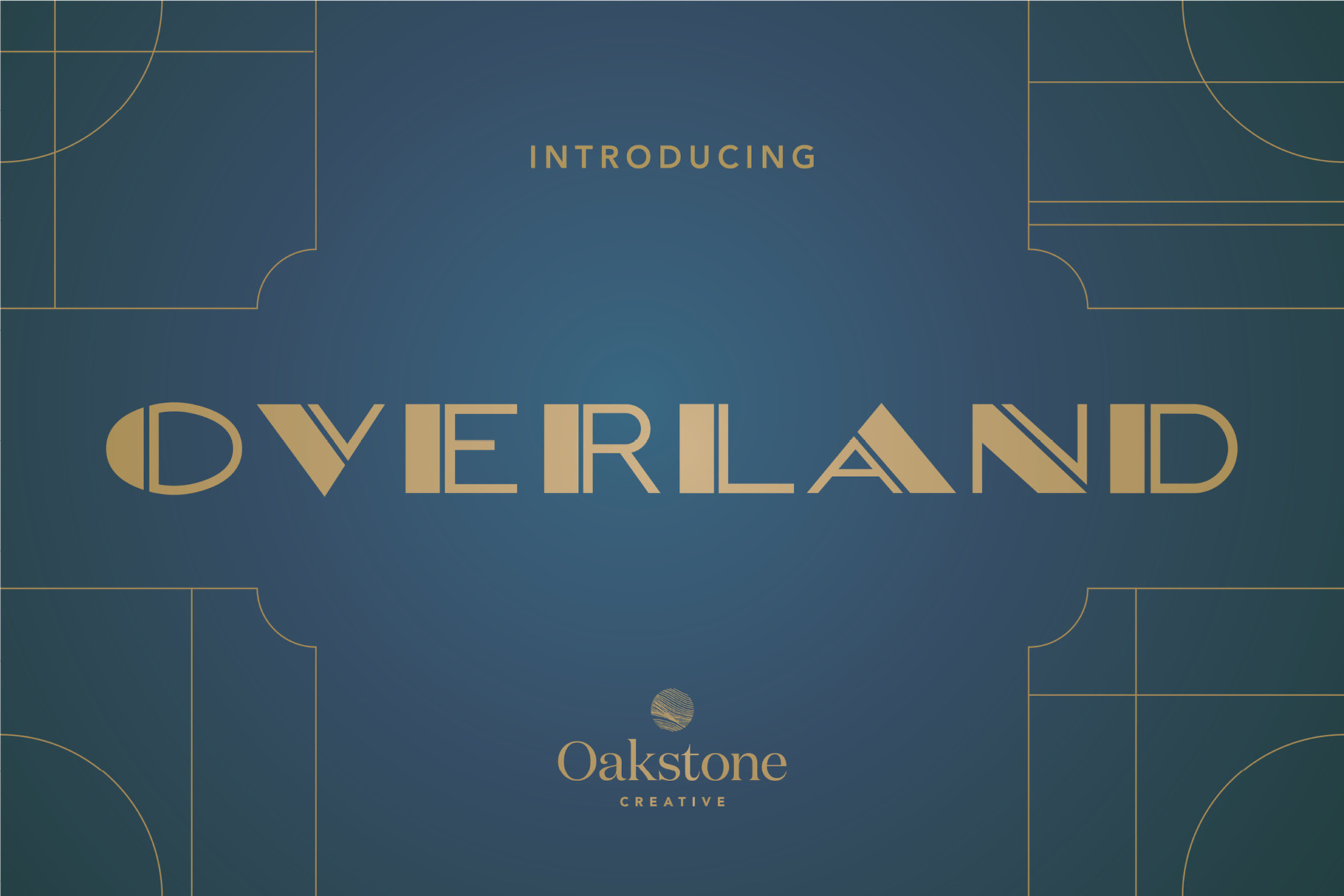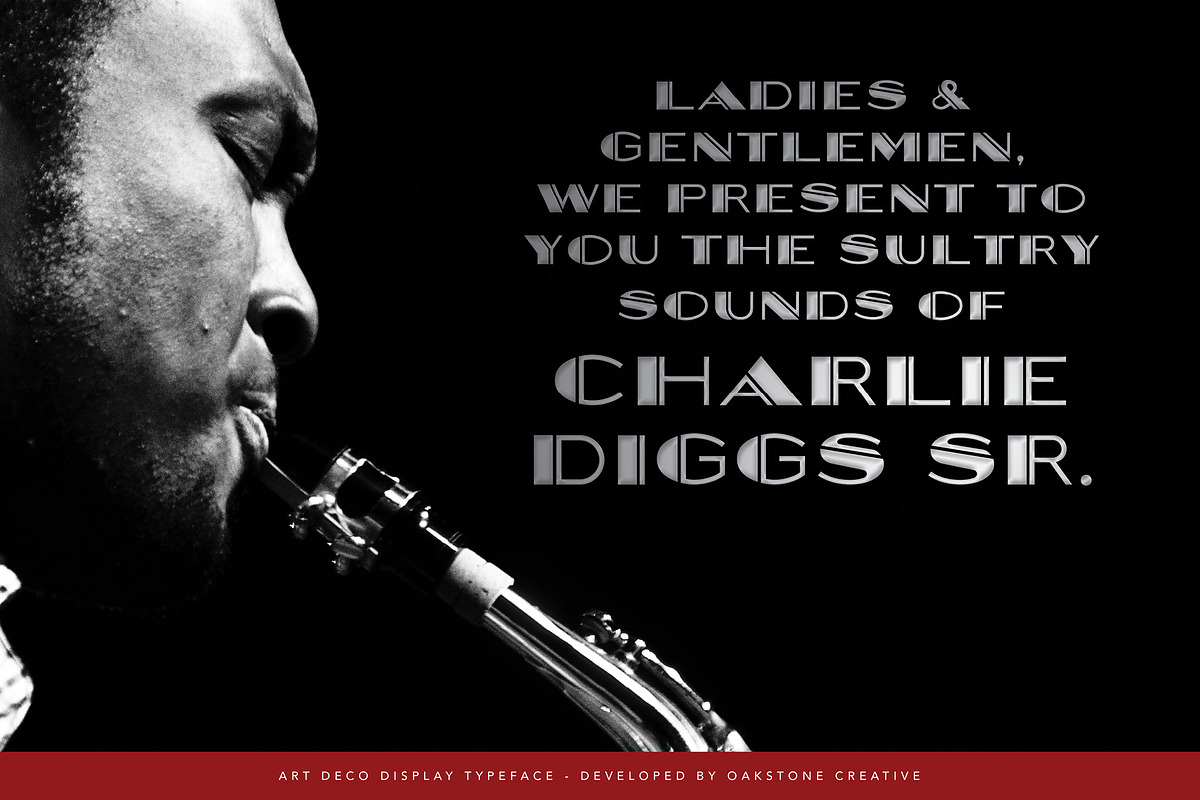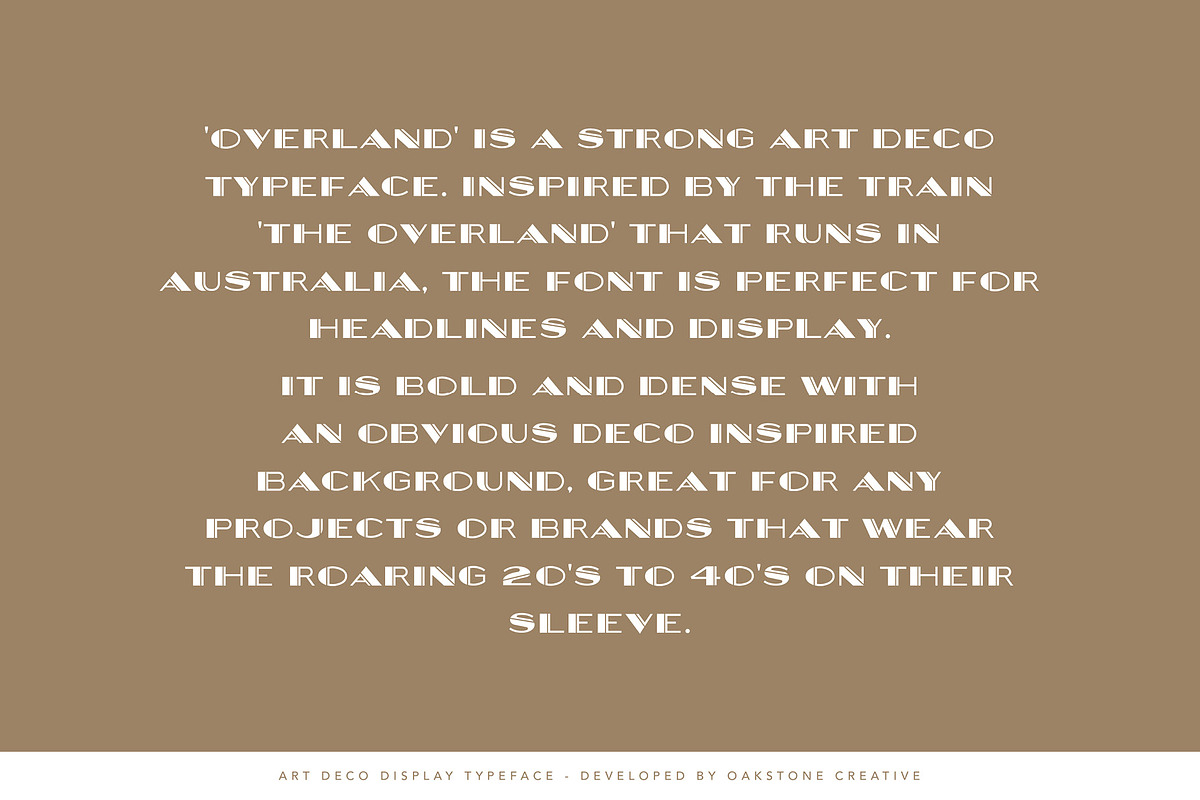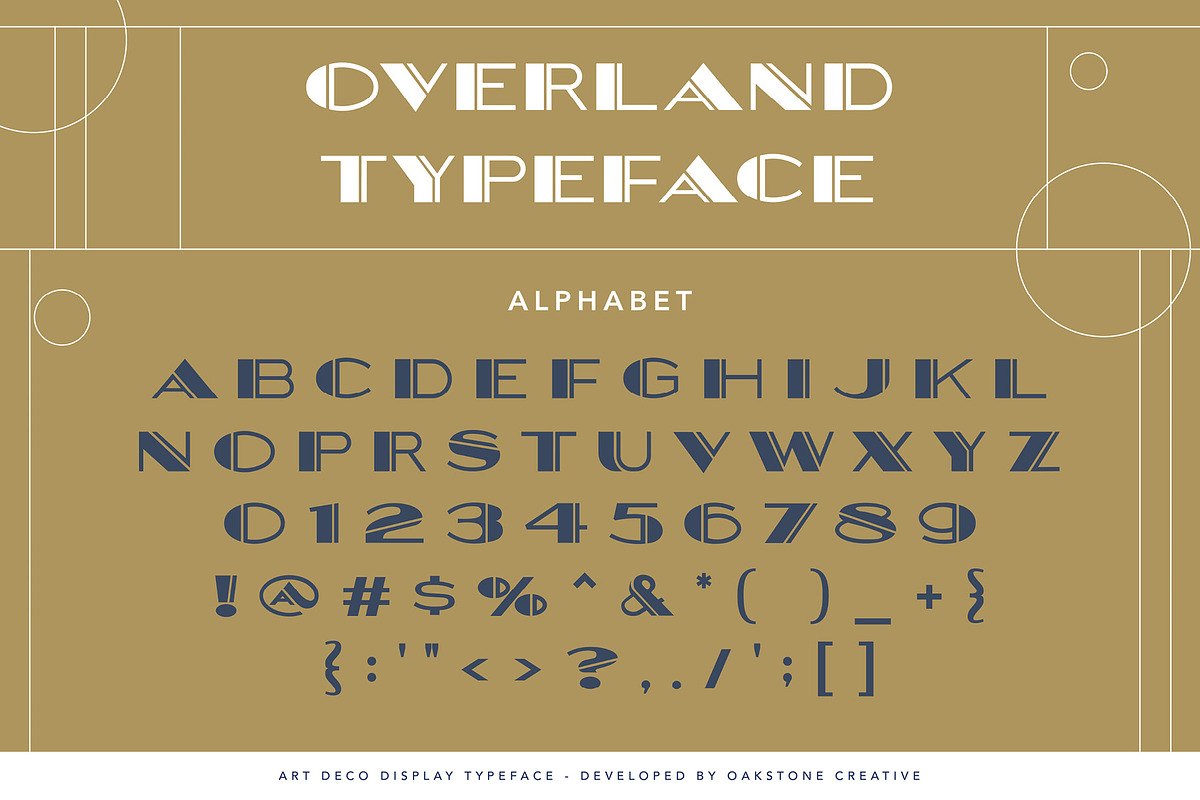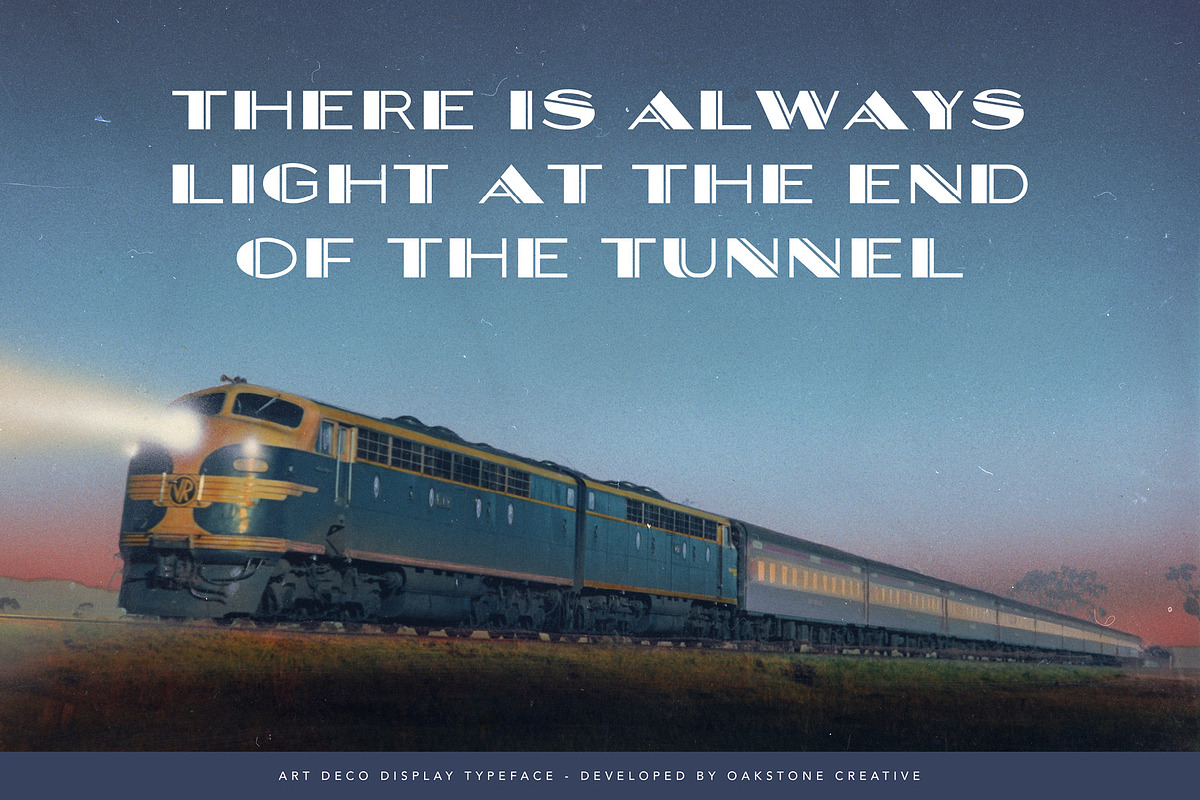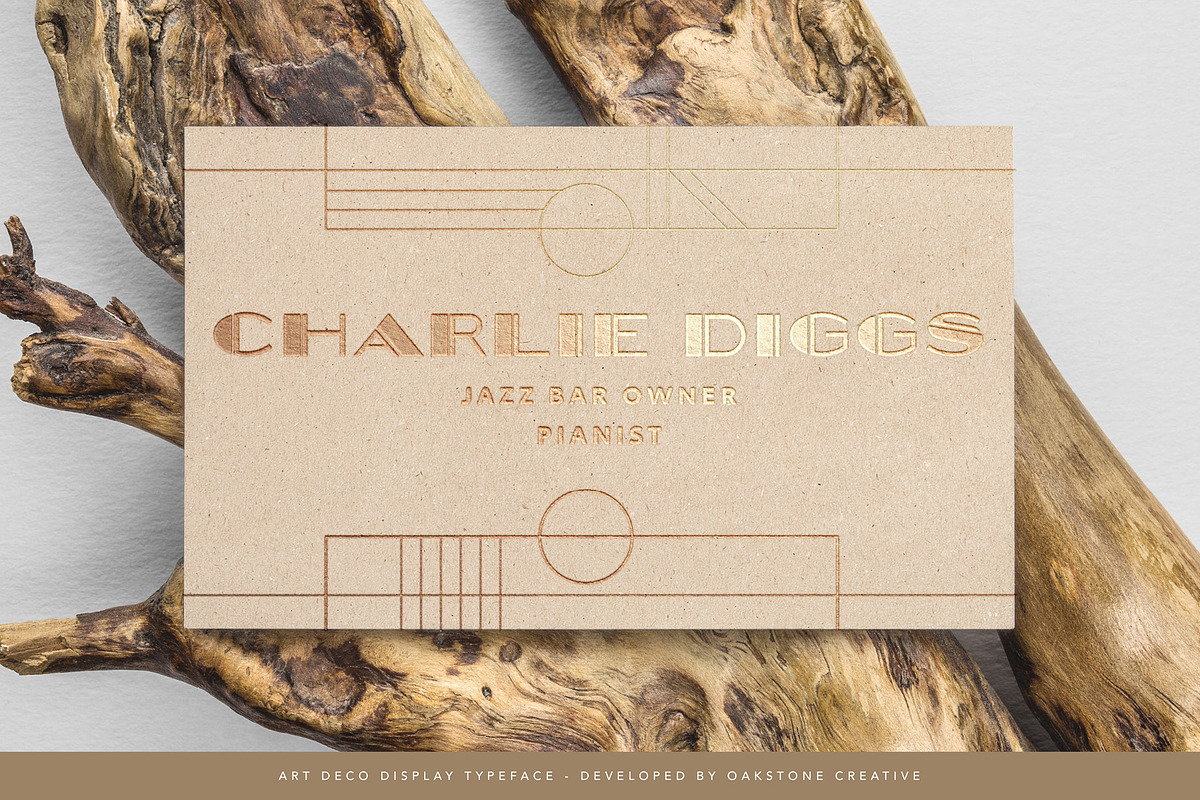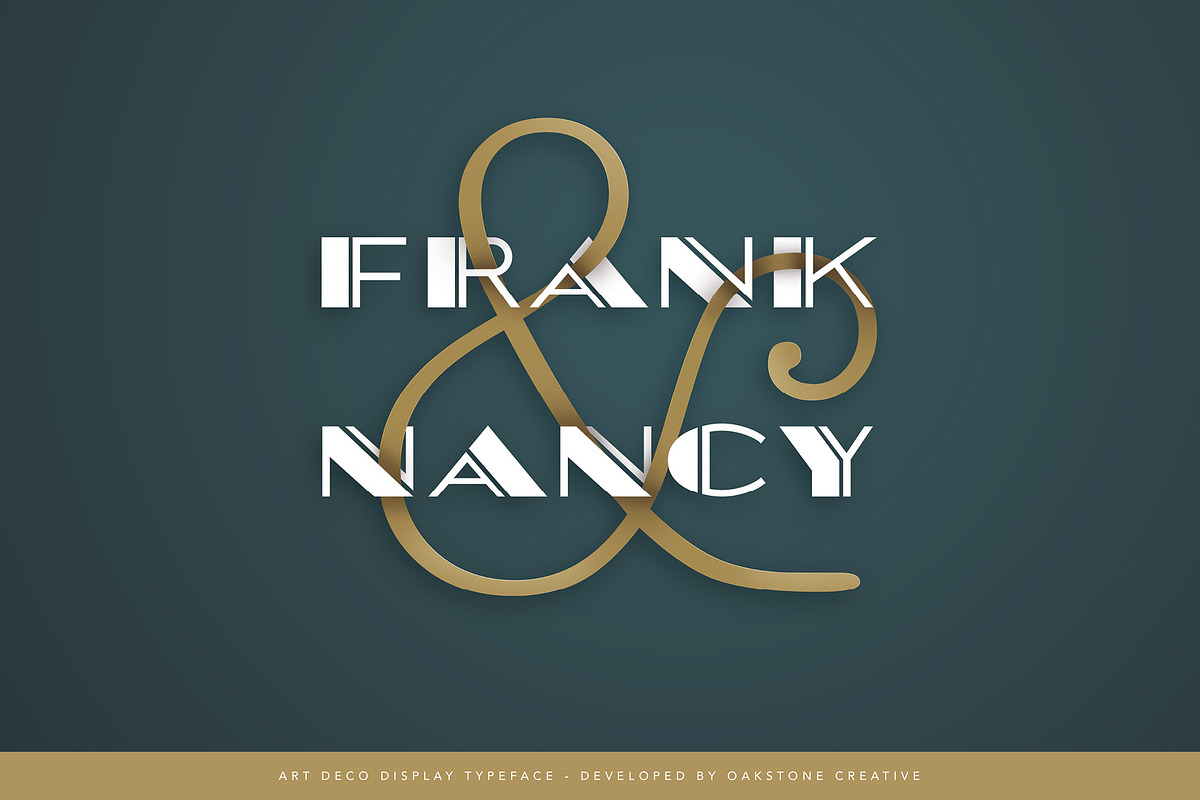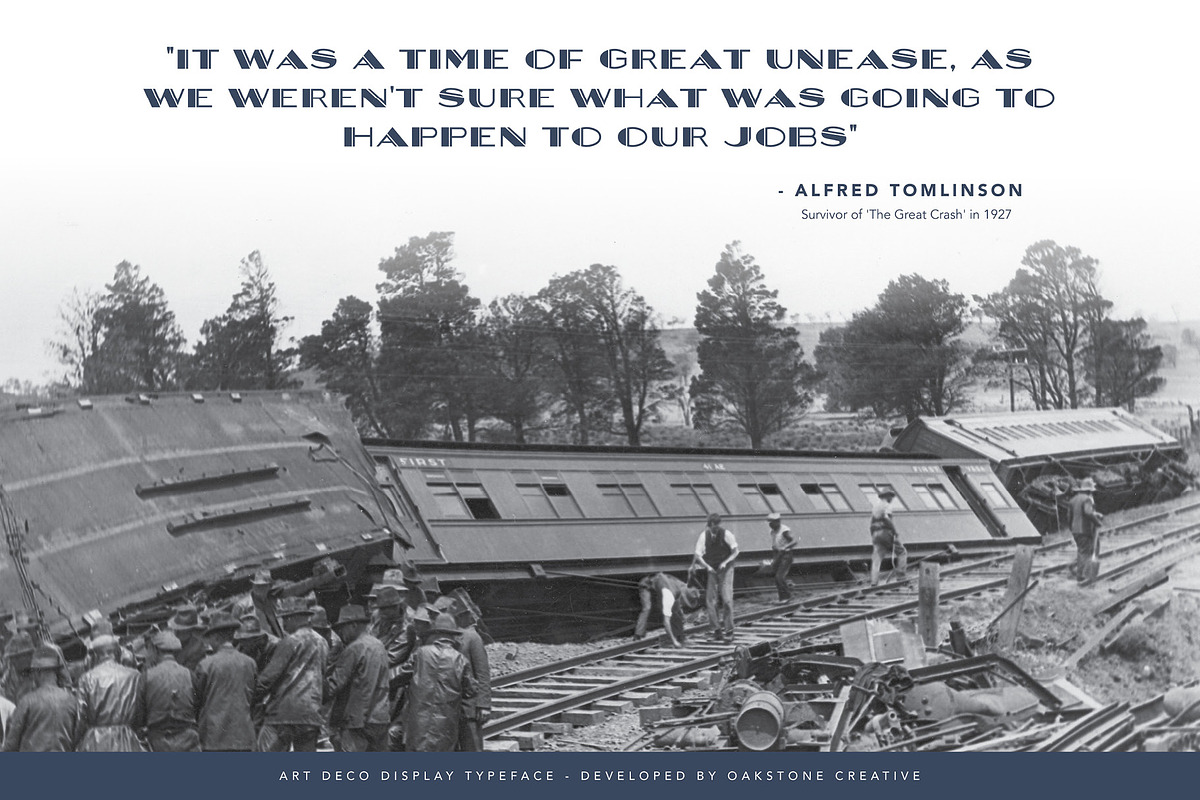
Overlander - Art Deco 1920s Font
Overlander is a bold and elegant display typeface inspired by the golden era of travel, Art Deco architecture, and the spirit of 1920s sophistication. Named after the iconic Overland train that links Melbourne and Adelaide, this font captures the timeless charm of railway posters, jazz club signage, and vintage ephemera from a bygone era.
With sharp angles, geometric curves, and confident letterforms, Overlander is perfect for branding, editorial design, packaging, travel posters, or anything that calls for a dramatic yet refined typographic presence. It evokes the glamour of old-world journeys and the bold optimism of early modernism.
Designed in all caps for maximum visual impact, Overlander balances personality with clarity — a nod to both the structured elegance of the Art Deco period and the adventurous spirit of travel during the roaring twenties.
- Uppercase A–Z letters
- Numbers and basic punctuation
- All-caps display style
- 1920s Art Deco design influence
- Perfect for vintage branding, jazz posters, train-themed design, packaging, and editorial layouts